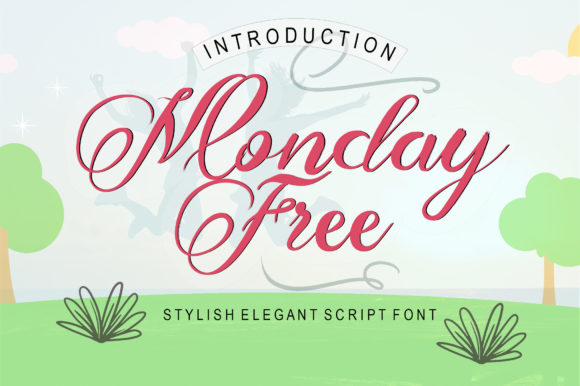
Monday Free Font
Journey into the world of Monday Free Font, a captivating script font brimming with charm and sophistication. Its graceful lines and elegant curves evoke a sense of timeless beauty, inviting you to create designs that speak to the heart. Crafted with meticulous attention to detail, this font effortlessly conveys a message of refinement and artistry.
Be it a captivating poster that commands attention or an intimate wedding invitation that exudes romance, Monday Free Font has the power to transform your words into captivating expressions. Its flowing strokes and whimsical glyphs add a touch of playfulness and intrigue, making it the perfect choice for designs that seek to inspire and engage.
Let Monday Free Font be your muse as you embark on a creative adventure, where your imagination knows no bounds. Its versatility knows no limits, allowing you to weave your creative magic across a myriad of projects. From eye-catching logos that demand attention to heartfelt greeting cards that warm the soul, this font is your steadfast companion, ready to bring your artistic vision to life.
With Monday Free Font, the possibilities are boundless. Its timeless aesthetic transcends trends, ensuring that your designs endure the test of time. Let this font be your creative partner, guiding you towards design excellence. Indulge in the joy of crafting masterpieces that resonate with your audience, leaving an indelible mark on their hearts and minds.
Whether you are a seasoned design professional or just starting your creative journey, Monday Free Font is your trusted ally, ready to elevate your designs to new heights. Embrace the allure of this enchanting script font and embark on a voyage of artistic discovery. Monday Free Font awaits your creative touch, promising to transform your designs into works of art.